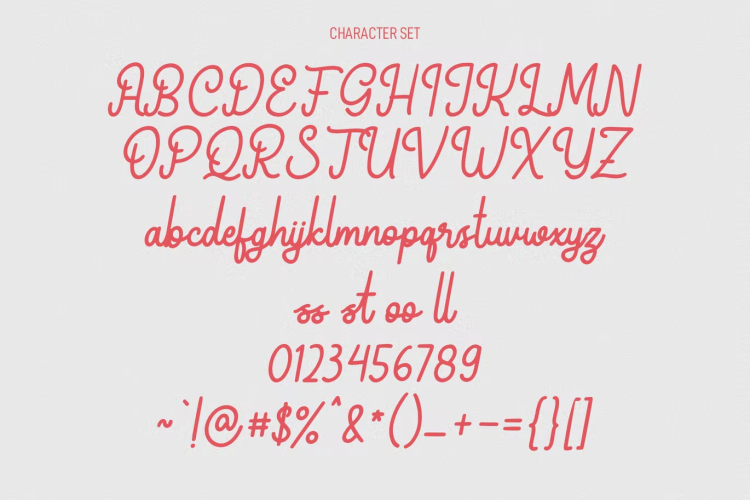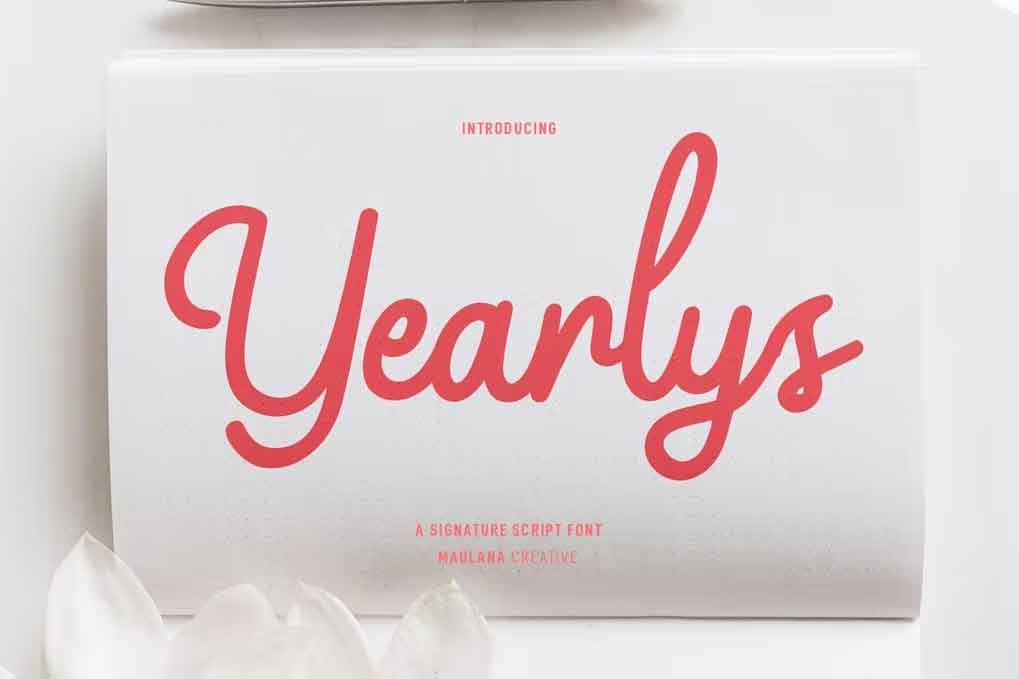
Yearlys Retro Script Font
Yearlys is a casual retro script font. With mono-line consist stroke, fun character with a bit of ligatures and alternates. To give you an extra creative work. Yearlys font support multilingual more than 100+ language. This font is good for logo design, Social media, Movie Titles, Books Titles, a short text even a long text letter and good for your secondary text font with sans or serif. Make a stunning work with Yearlys font.
Where Yearlys Retro Script Font works best
A short phrase in Yearlys Retro Script Font carries warmth that a typeset sans cannot fake; keep the rest of the card plain.
Chalkboard-style headings in Yearlys Retro Script Font make a menu feel hand-made. Keep the dish descriptions in a simple face so prices stay readable.
One line of Yearlys Retro Script Font over a photo is enough; the script carries the tone and the caption does the work.
What kind of work does Yearlys Retro Script Font suit?
It sits in the Script And Handwritten group and reads as branding, creative, readable, retro. That makes it a candidate wherever those qualities help: headings, packaging, social graphics and brand work. Set it at the size you plan to use before deciding.